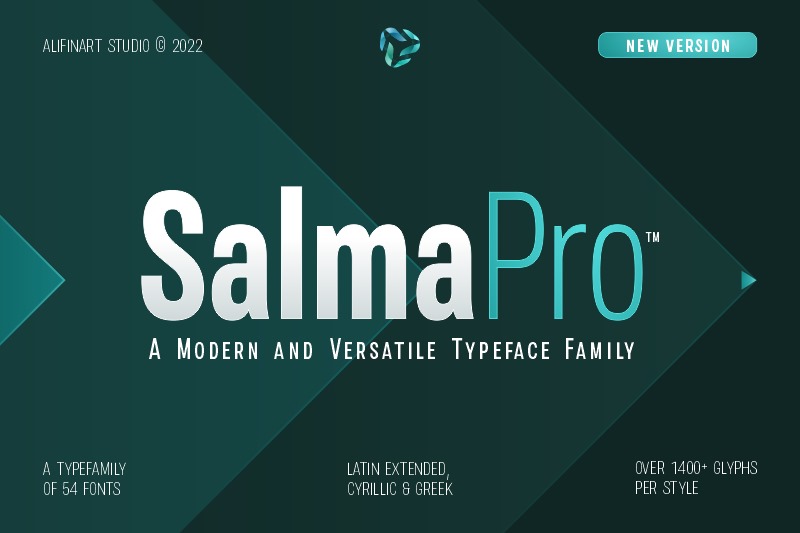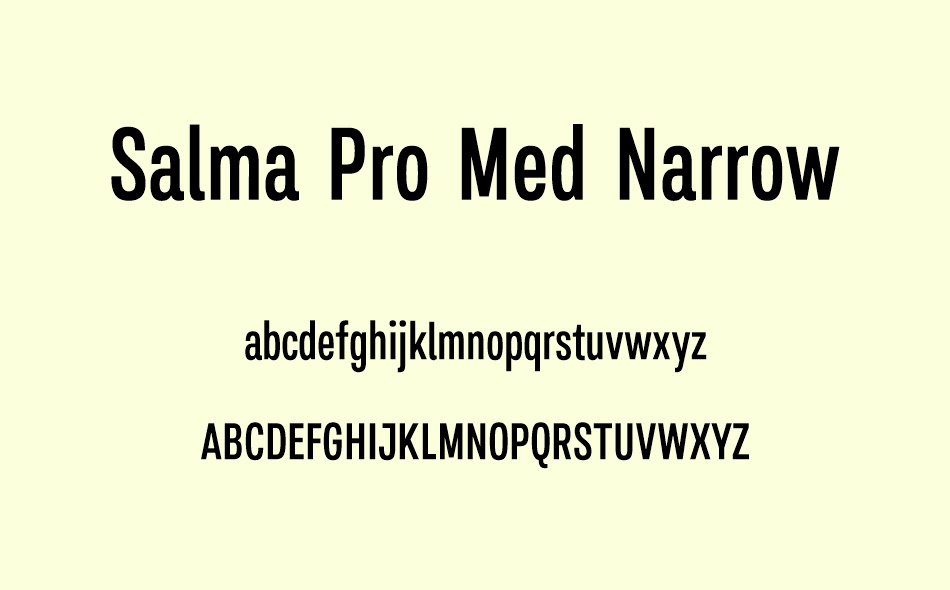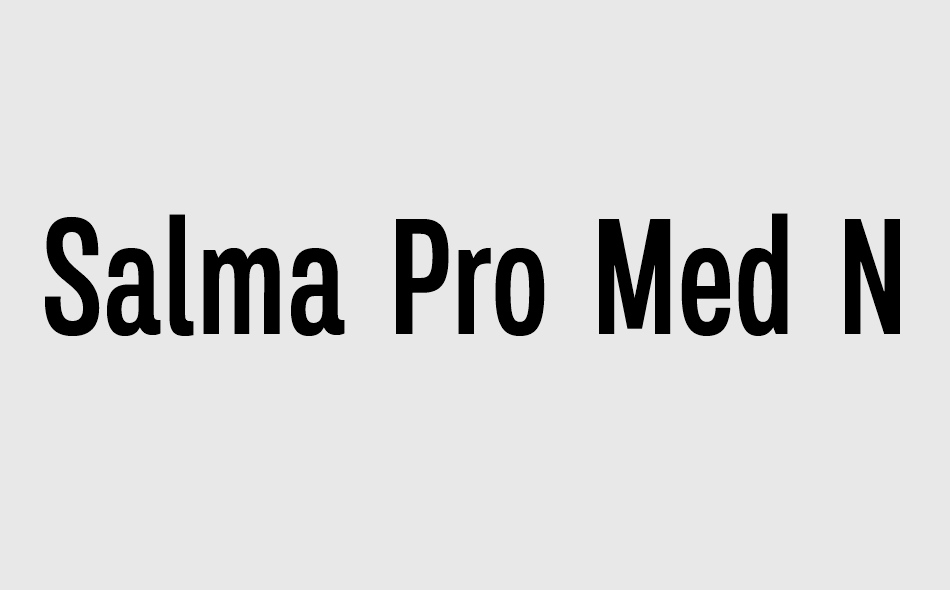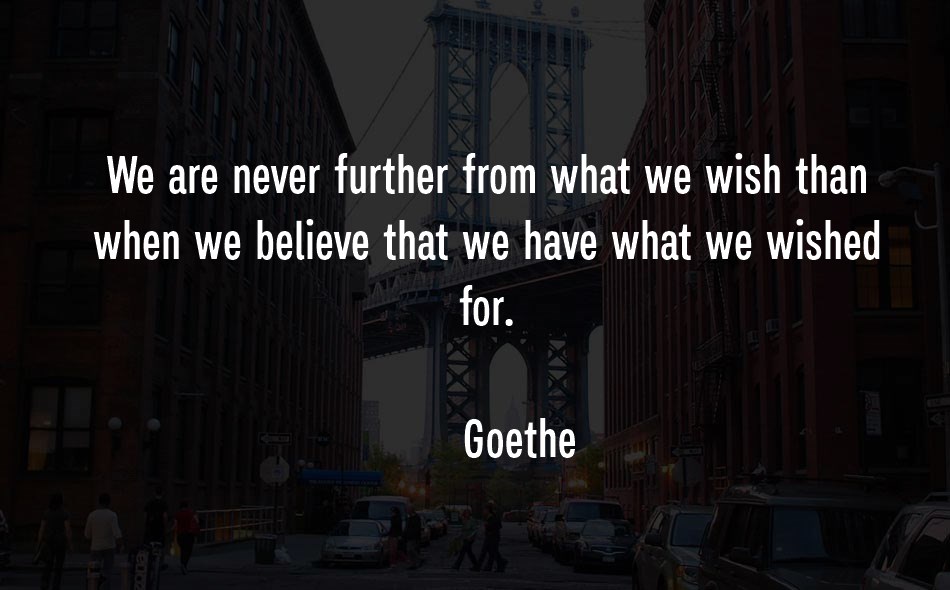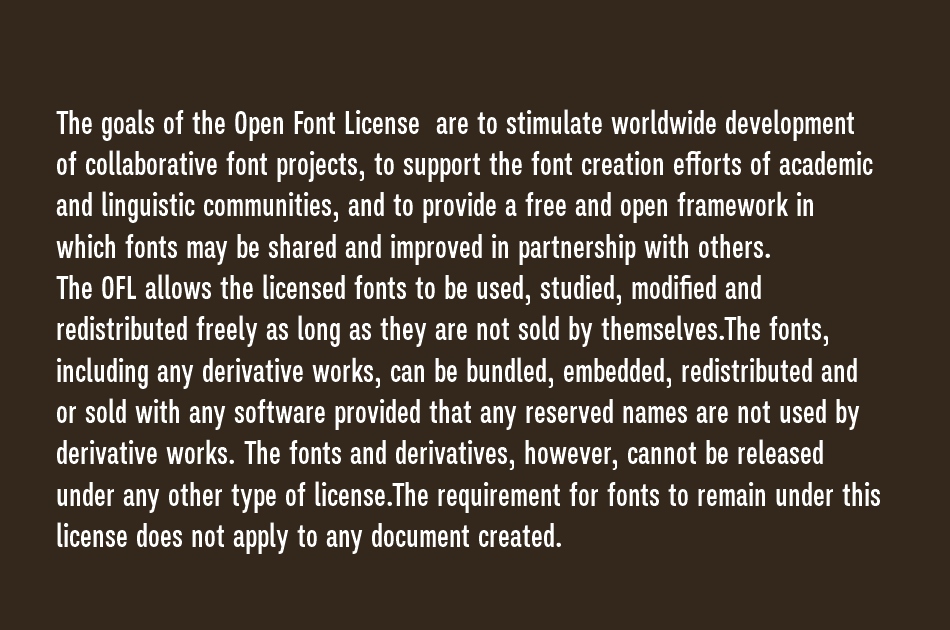
Salma Pro font
Typeface Story
Introducing Salma Pro, a modern and sleek sans-serif font that boasts a new design and a strong character. As the successor of the previous version (Salma Alfasans), Salma Pro is an extended version that offers an abundance of features, good legibility, and a wide range of styles, making it perfect for any project.
Crafted with great passion and conscientiousness, Salma Pro's unique design is a work of art. You will see beautiful details in every letter, making it perfect for branding, logos, and other design projects. Whether you're using it for headlines or body text, Salma Pro's good legibility ensures that it looks great at any size.
Versatility: With 1400+ glyphs and three different widths to choose from, Salma Pro offers a wide range of styles and features, making it the perfect choice for any project.
Reliability: This font is designed specifically for professional designers and offers superior functionality and quality. You can trust Salma Pro to deliver consistent and high-quality results.